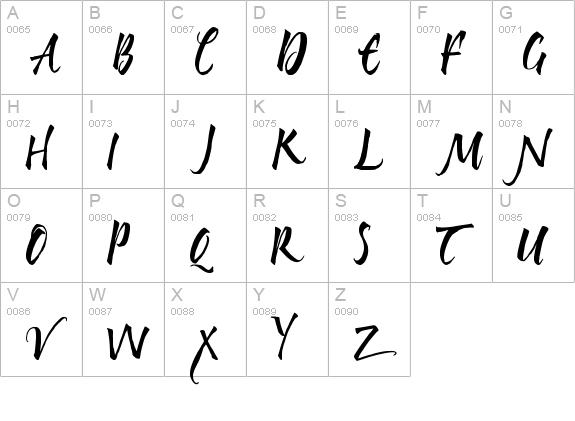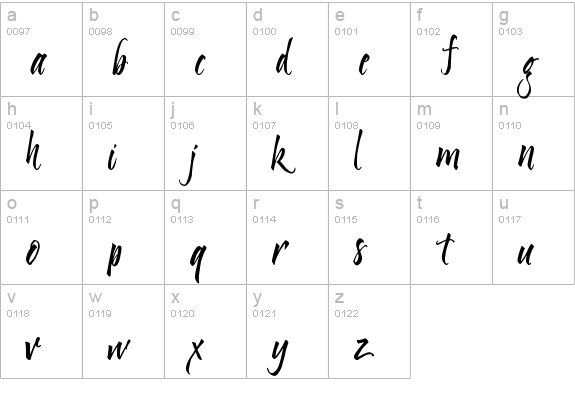
My Nerd Font Details
Introducing My Nerd font, a quirky and playful typeface designed for those who embrace their inner geekiness. This font features unique and eye-catching characters that are perfect for adding a fun and nerdy touch to your projects. Whether you're creating posters, social media graphics, or branding materials, My Nerd font is sure to make a statement. What's more, My Nerd font is available for free download at FontsMarket.com, making it easily accessible for all your design needs. Don't miss out on this amazing opportunity to add some nerdy charm to your creations with My Nerd font. Download it today and let your creativity shine!